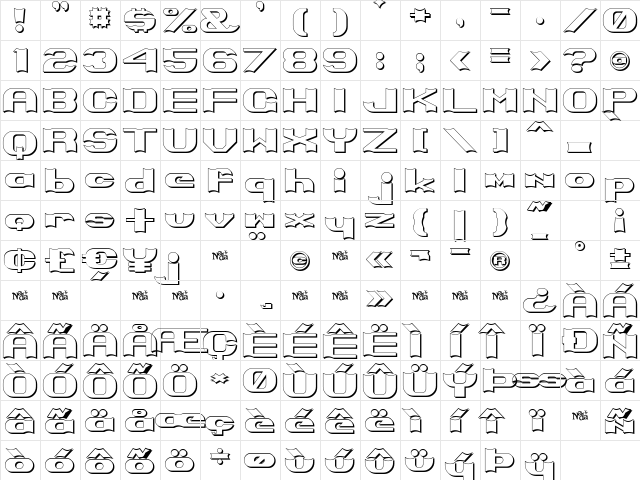
Primo Bright Regular
| Foundry | GreyWolf WebWorks |
| Designer | Rich Gast |
Design Context for Primo Bright Typeface
Primo Bright offers clean, dependable letterforms without strong stylistic allegiance, making it a practical choice for designers who need flexibility.